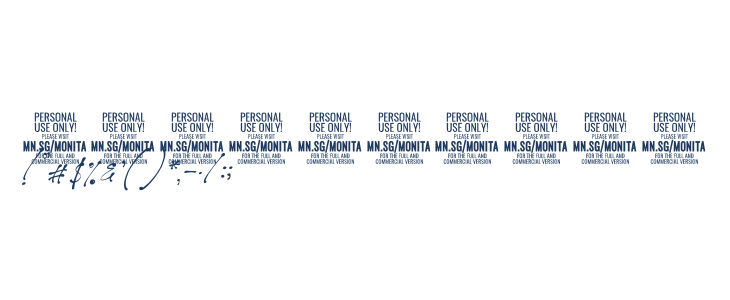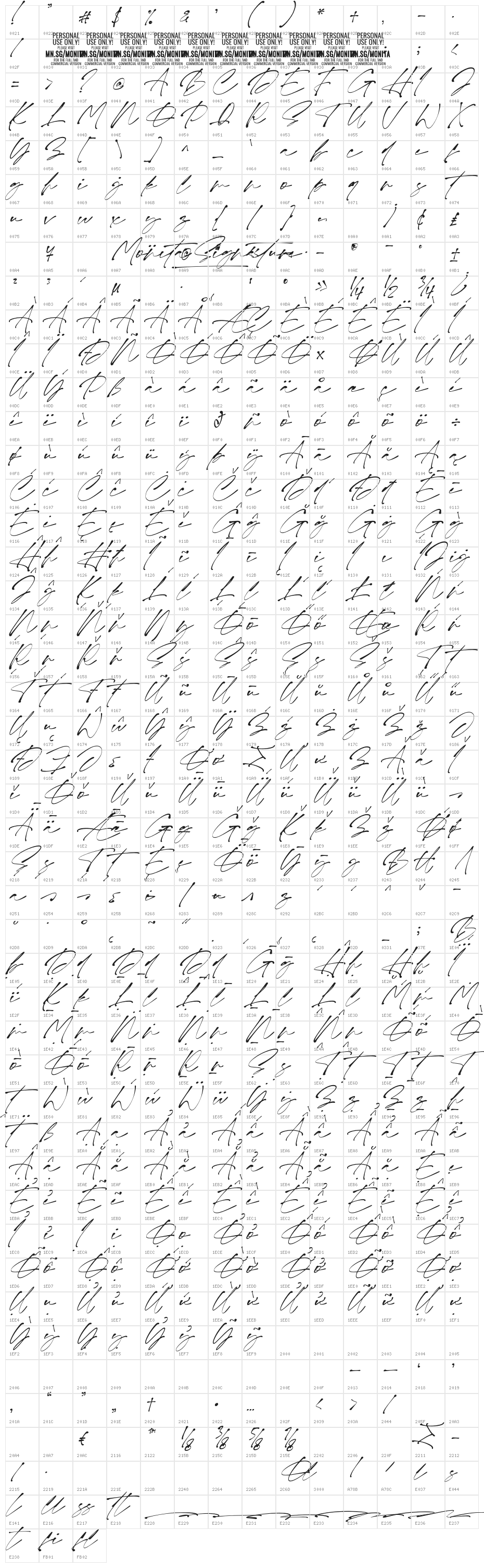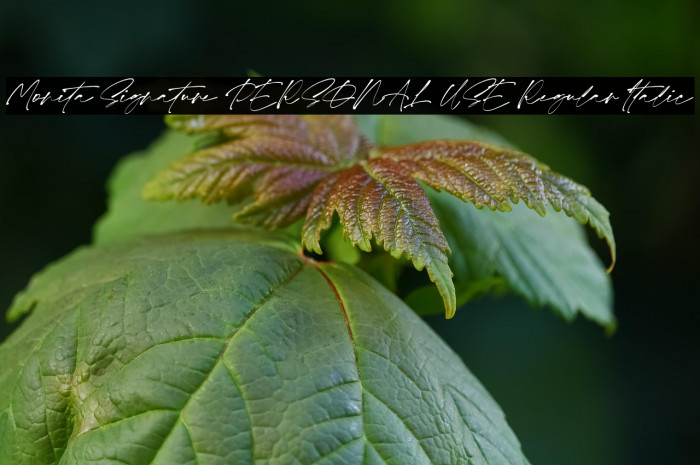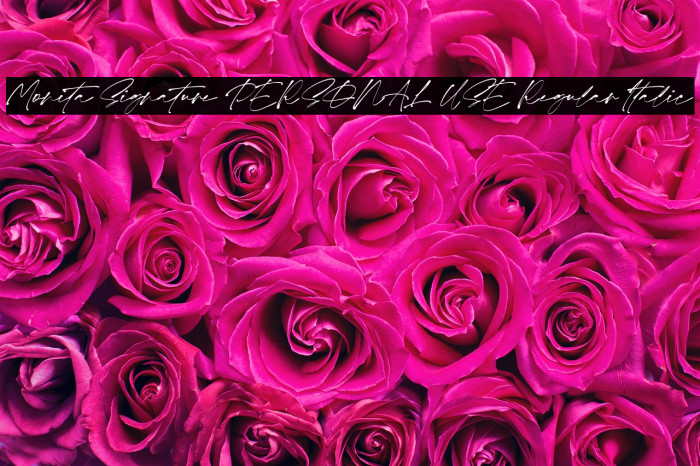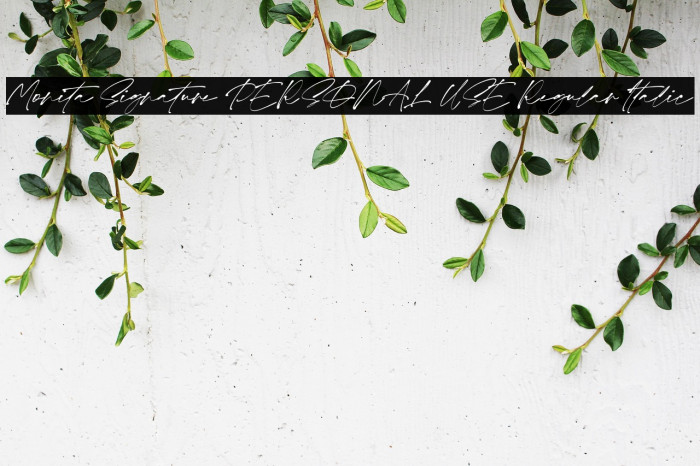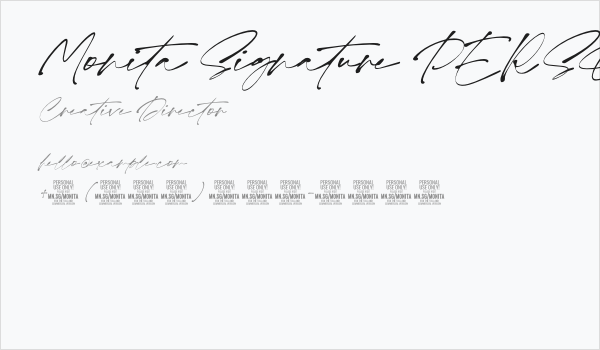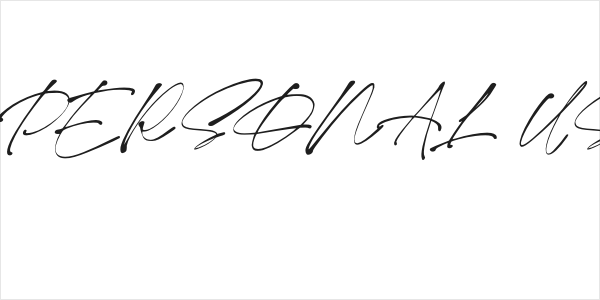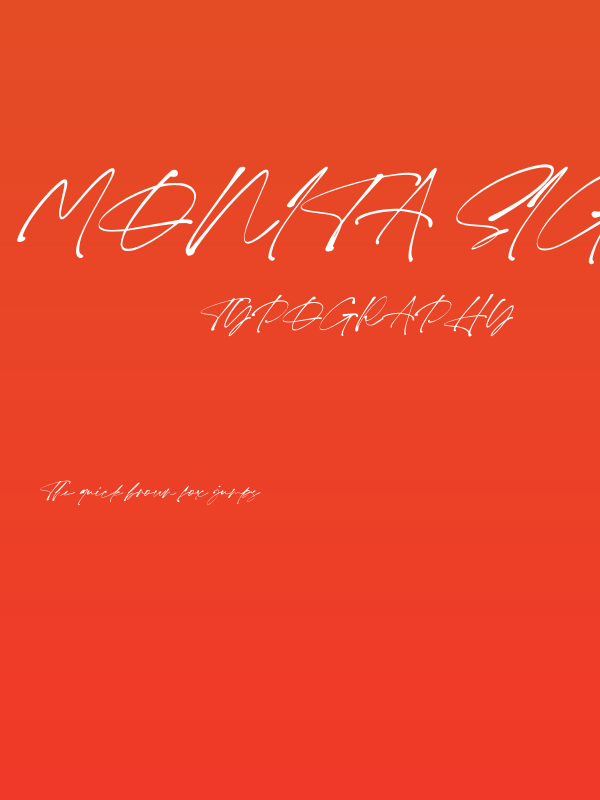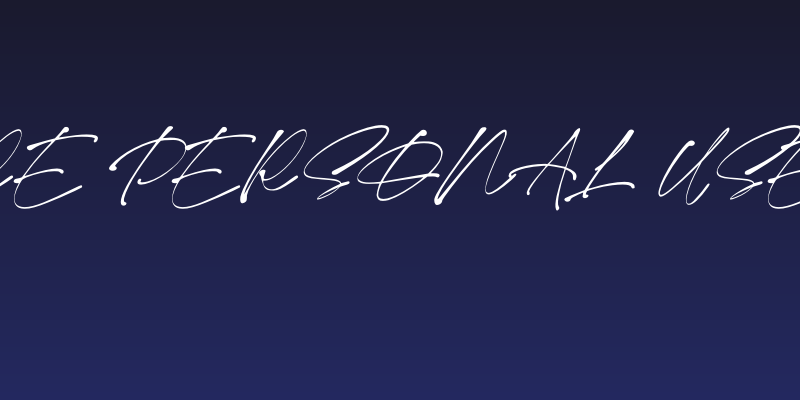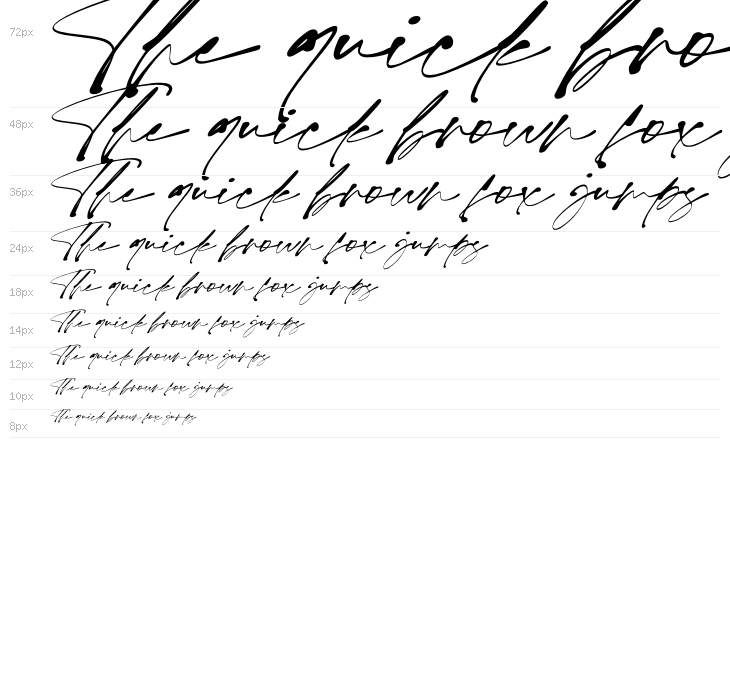
Monita Signature PERSONAL USE Regular Italic Font
Monita Signature PERSONAL USE Regular Italic Description
This font exudes a sophisticated and elegant handwritten style, characterized by its fluid and cursive strokes. The letters are connected in a seamless flow, giving it a natural and personal touch. The uppercase letters are bold and prominent, while the lowercase letters maintain a graceful and delicate appearance. The font includes a full set of numerals and a variety of special characters, enhancing its versatility. Its overall design is reminiscent of a personal signature, making it ideal for projects that require a touch of elegance and individuality.
| Overall Style | Elegant, Personal |
| Proposed Projects | Ideal for wedding invitations, personal branding, logo design, and elegant stationery. |